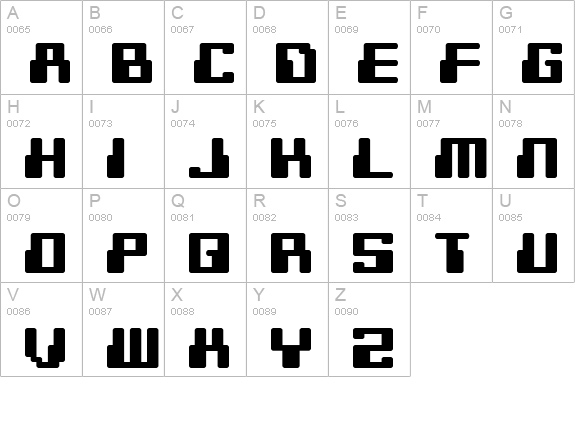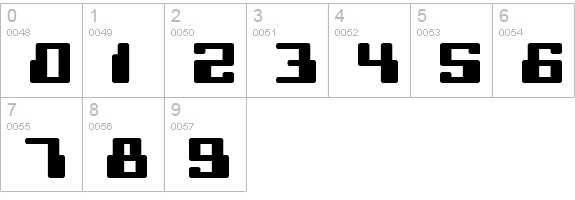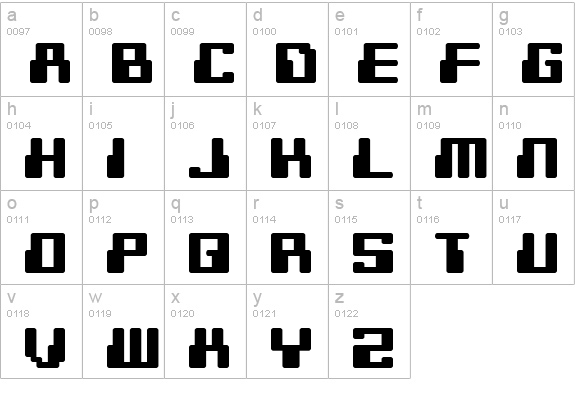
Digitek is a modern and sleek typeface that exudes a sense of sophistication and professionalism. With its clean lines and geometric shapes, this font is perfect for a wide range of design projects, from branding to editorial layouts. The Digitek font family includes a variety of weights and styles, making it versatile and adaptable to any design need. What sets Digitek apart is not only its contemporary design, but also the fact that it is available for free download at FontsMarket.com. This means that you can easily access this high-quality font without any cost, making it a valuable resource for designers and creatives seeking to elevate their projects with a touch of modern elegance. Whether you're working on a logo, website, or print materials, Digitek's clean and structured design will help you achieve a polished and professional look. Download Digitek for free today and unlock the potential of this versatile typeface for your next design project.